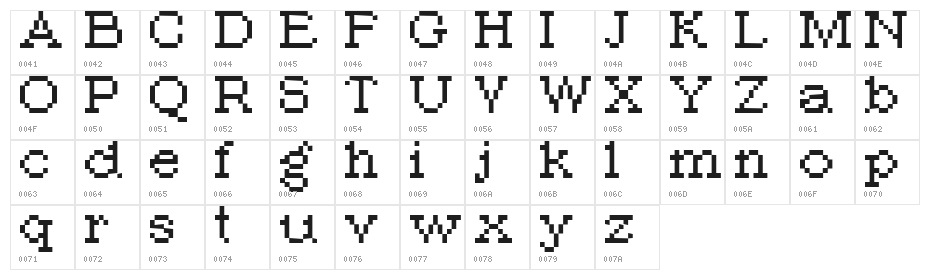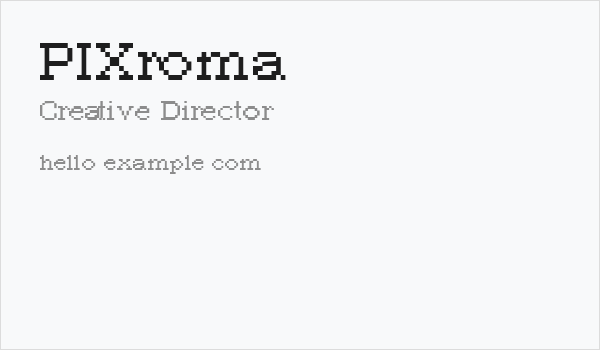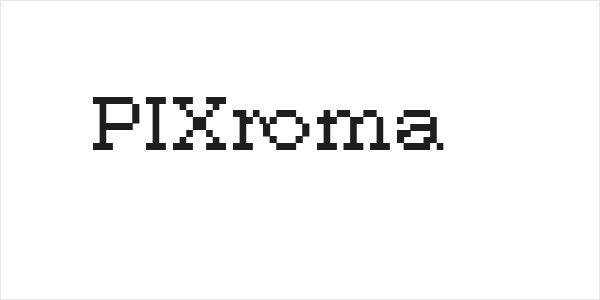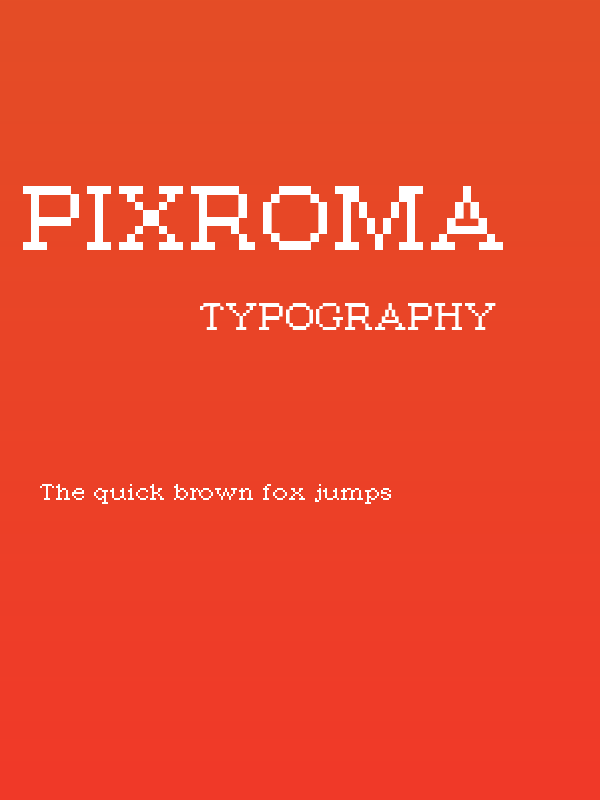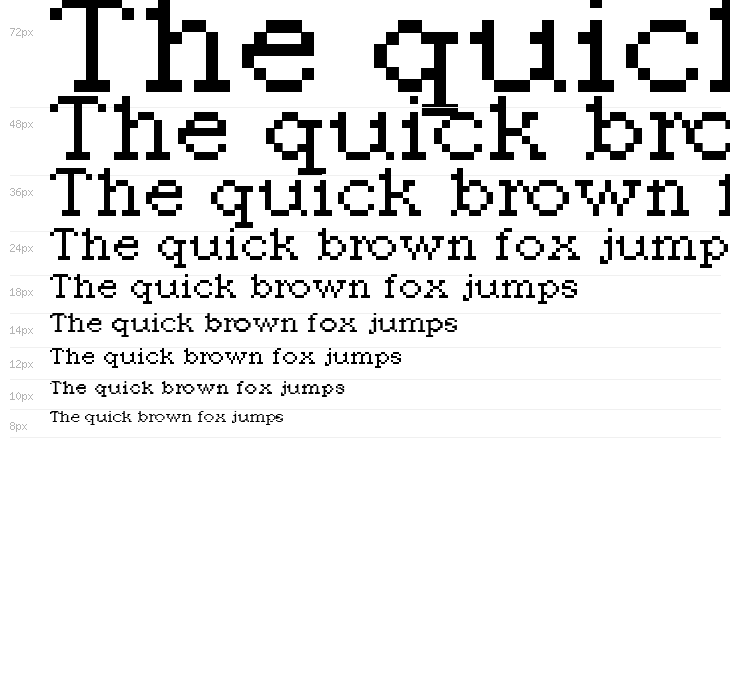
PIXroma_8 Font
PIXroma_8 Description
This font features a pixelated, retro style reminiscent of early digital displays and video games. Each character is constructed with a grid-like precision, giving it a blocky and geometric appearance. The uppercase and lowercase letters maintain a consistent height and width, contributing to a uniform look. The font's design is straightforward, with minimal curves and embellishments, emphasizing clarity and readability. Its nostalgic aesthetic makes it ideal for projects that aim to evoke a sense of vintage digital technology.
| Use Case | Logos, Headlines, Digital displays |
| Proposed Projects | Ideal for retro video game designs, digital-themed posters, and nostalgic branding projects. |